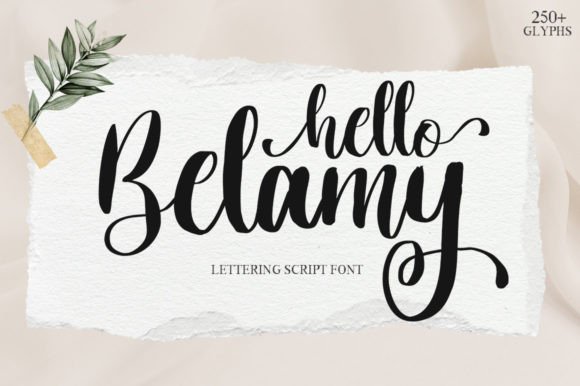
Dive into the world of Hello Belamy, a captivating script font that exudes charm and personality. This enchanting creation by Struggle Studio is the ultimate choice for those seeking a touch of elegance and uniqueness in their designs. With its graceful strokes and playful curves, Hello Belamy adds a touch of magic to every project.
Express yourself effortlessly with Hello Belamy, the perfect companion for your creative endeavors. Whether you're a designer crafting a stunning logo, a social media enthusiast sharing captivating posts, or an artist creating captivating movie or book titles, Hello Belamy will elevate your work to new heights. Its versatility knows no bounds, allowing you to explore endless possibilities and create designs that leave a lasting impression.
Hello Belamy's essence lies in its ability to evoke emotions and create a connection with your audience. Its hand-drawn charm adds a personal touch, making your designs feel warm and inviting. Whether you're creating a logo that speaks to your brand's unique character or crafting captivating social media posts that capture attention, Hello Belamy will help you make a statement that resonates with your audience.
Unleash your creativity with Hello Belamy and watch your designs flourish. Its seamless flow and elegant style will effortlessly enhance your projects, adding a touch of sophistication and artistry. Embrace the beauty of Hello Belamy and embark on a creative journey that will leave you inspired and your audience captivated.